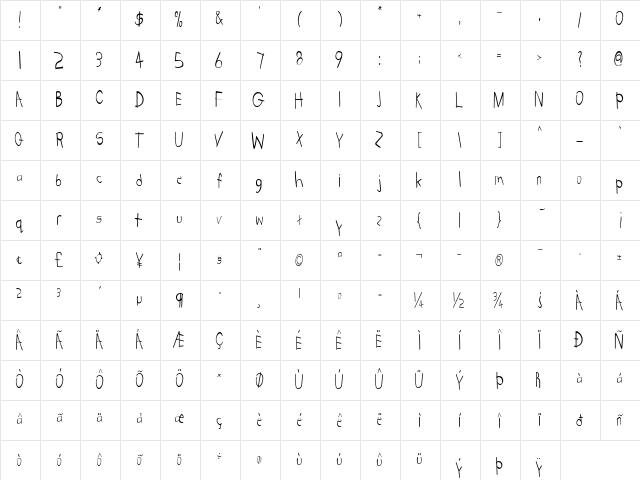
KidstuffCondensed Regular
Design Context for KidstuffCondensed
KidstuffCondensed has an approachable, lighthearted character - its loose, expressive forms are well-suited to children's content, casual branding, and fun-first design.
Font Pairing: Pairs well with a rounded or humanist sans for body copy, maintaining the friendly tone without relying on KidstuffCondensed to carry extended reading.
Pro Tip: Use KidstuffCondensed at larger display sizes where its expressive character can land. Pair with a clean, simple sans for body copy to maintain readability.